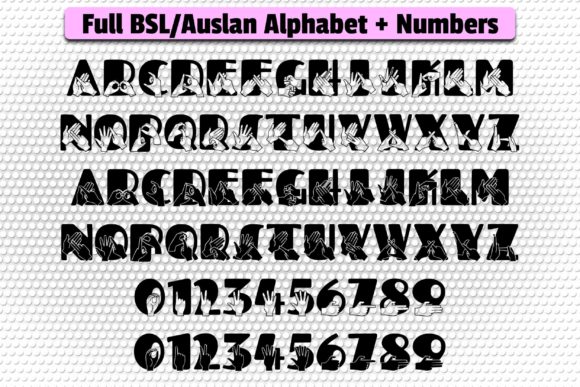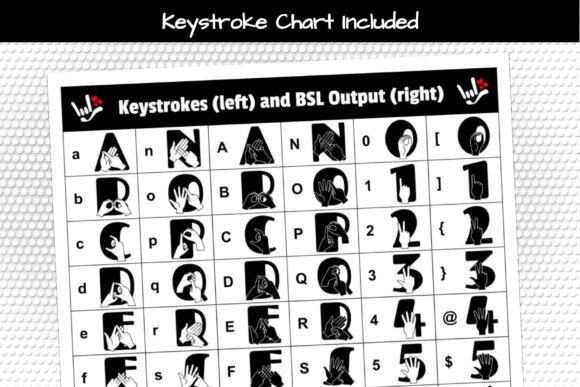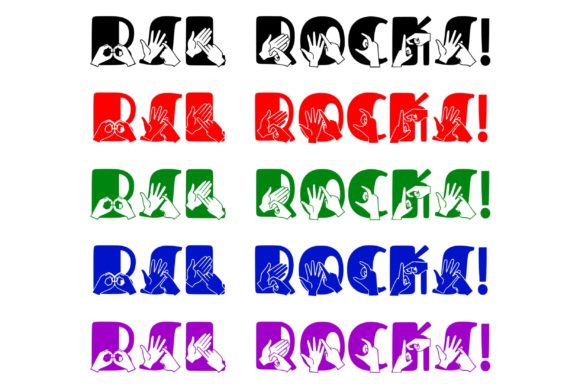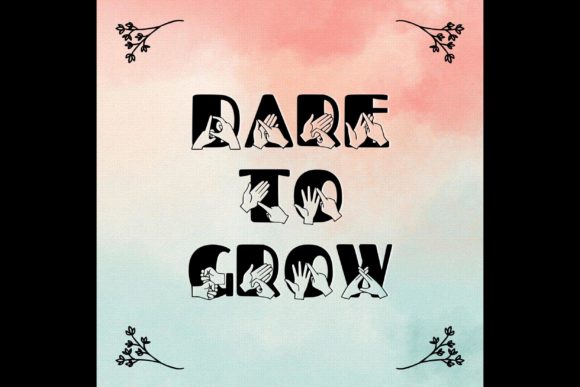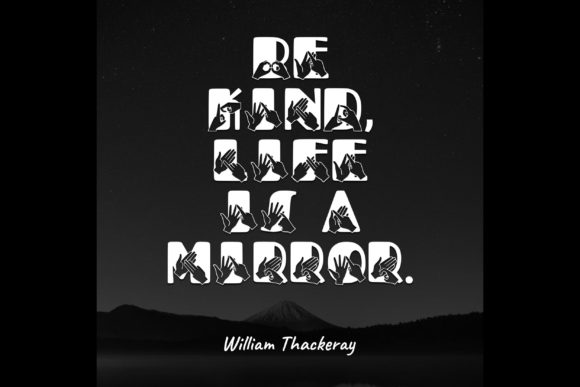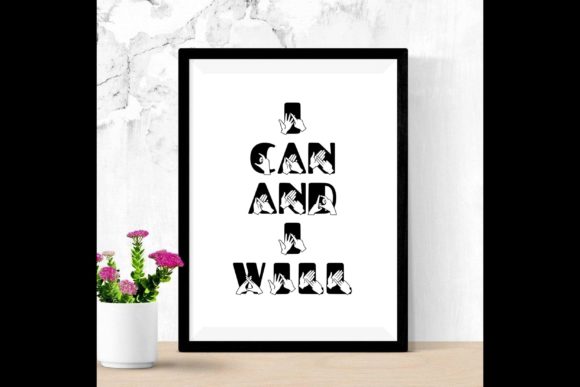
Introduction to Able Lingo BSL 5 Font
Able Lingo BSL 5 is a decorative font inspired by the British Sign Language.
It is the perfect font choice for any creative project you can think of Add it to your favorite designs, and notice how it makes them more interesting and appealing.
Key Features of Able Lingo BSL 5 Font